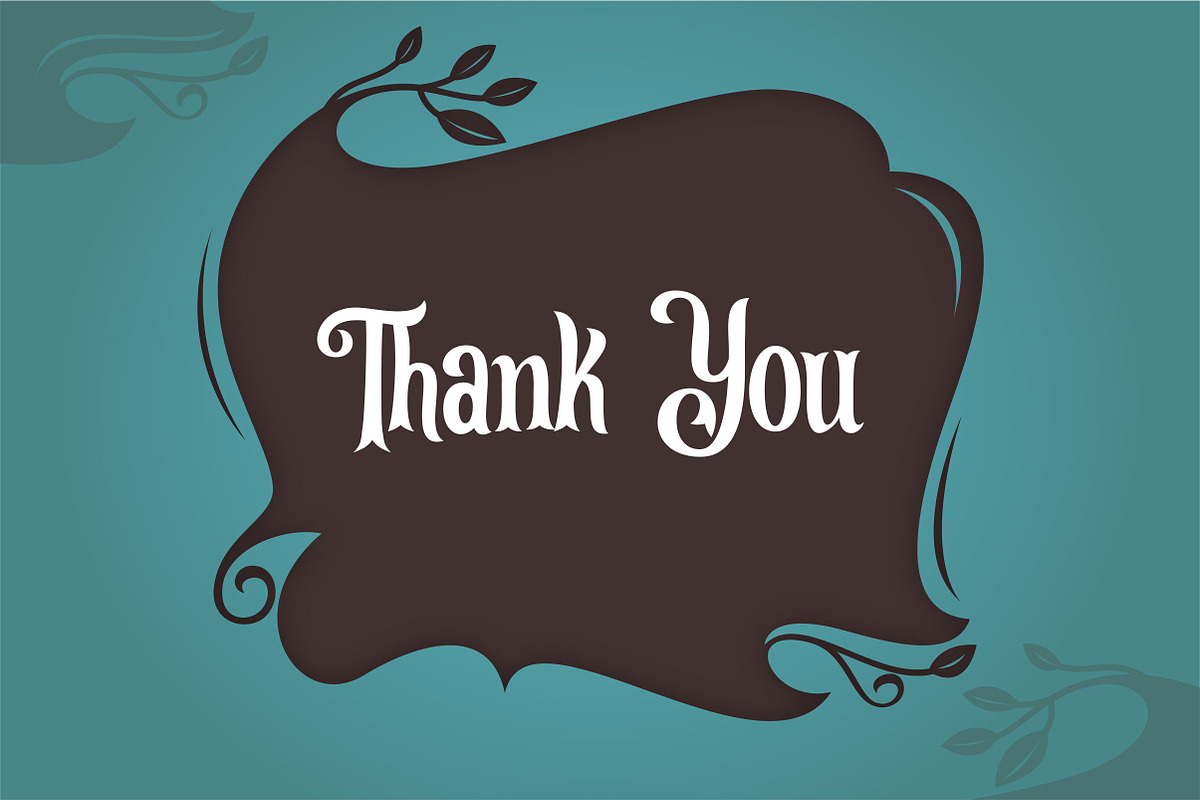
Leonardo da Vincen
Leonardo da Vincen Typeface Font type font with a style that is quite unique, has interesting features that can be used in many fields This font is inspired by the shape of a branch or a natural ornament that can be shaped vintage
Leonardo da Vincen is also suitable for making quotes, logos, beverage label designs, badge designs, t-shirt designs, food / coffee packaging and movie poster designs.